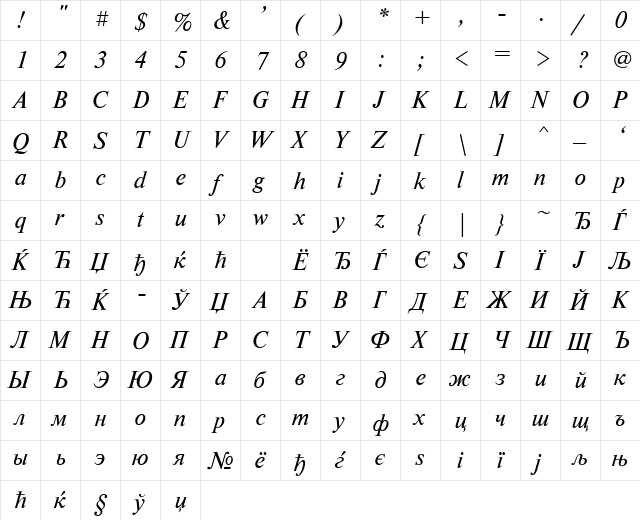
NewtonISOCTT Italic
Design Context for NewtonISOCTT Typeface
NewtonISOCTT takes a measured approach to typography — its balanced proportions and neutral character make it a reliable workhorse for both digital and print work. The slanted form adds forward momentum and visual energy.
Pro Tip: Try NewtonISOCTT for annotation and caption copy alongside an upright companion — the contrast in angle creates a dynamic but ordered typographic system.